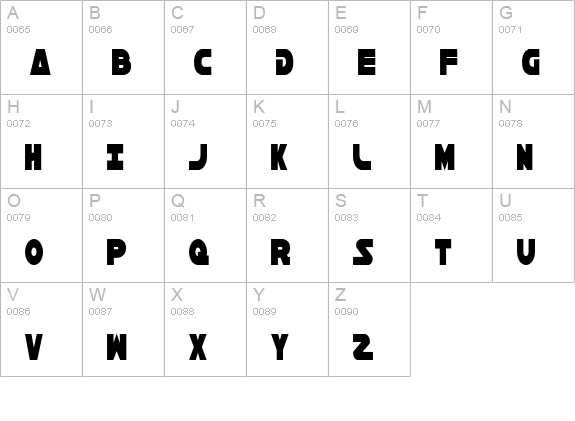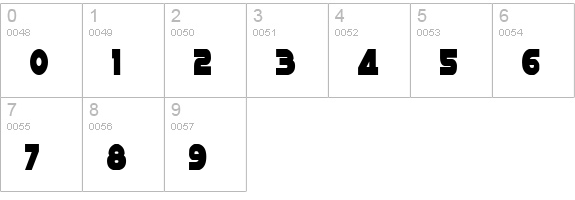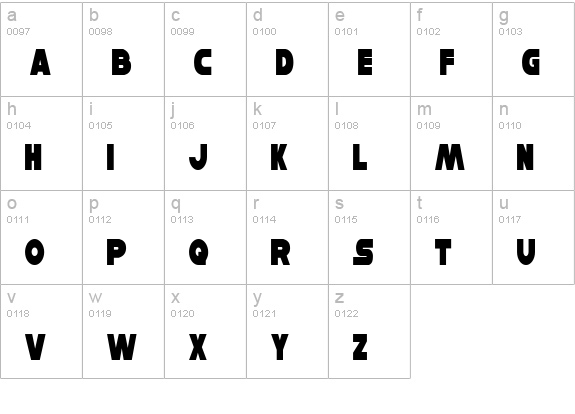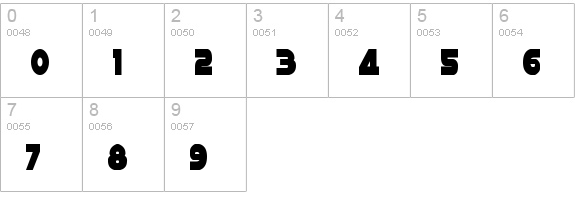
Han Solo Condensed Font Details
Han Solo Condensed is a distinctive, condensed-width variant in the Han typeface family \xE2\x80\x94 well suited to design and typography projects.
Han Solo Condensed font is a sleek and stylish typeface that exudes confidence and charm. Inspired by the iconic character from the Star Wars franchise, this font captures the essence of Han Solo's rebellious spirit and adventure. With its condensed letterforms and clean lines, Han Solo Condensed font is perfect for headlines, titles, and display purposes. This font is not only visually captivating but also incredibly versatile. Whether you're designing a movie poster, a book cover, or a website, Han Solo Condensed font will add a touch of personality and uniqueness to your project. Its condensed design allows for more text to fit in limited spaces while maintaining legibility, making it ideal for designs that require a compact and efficient use of space. And the best part is, Han Solo Condensed font is available for free! You can easily download this font from FontsMarket.com, a trusted source for high-quality fonts. With just a few clicks, you can start using this captivating typeface in your designs, without having to worry about any licensing fees or restrictions. Don't miss out on the opportunity to enhance your designs with the bold and adventurous spirit of Han Solo. Download Han Solo Condensed font for free today and let your creativity soar!